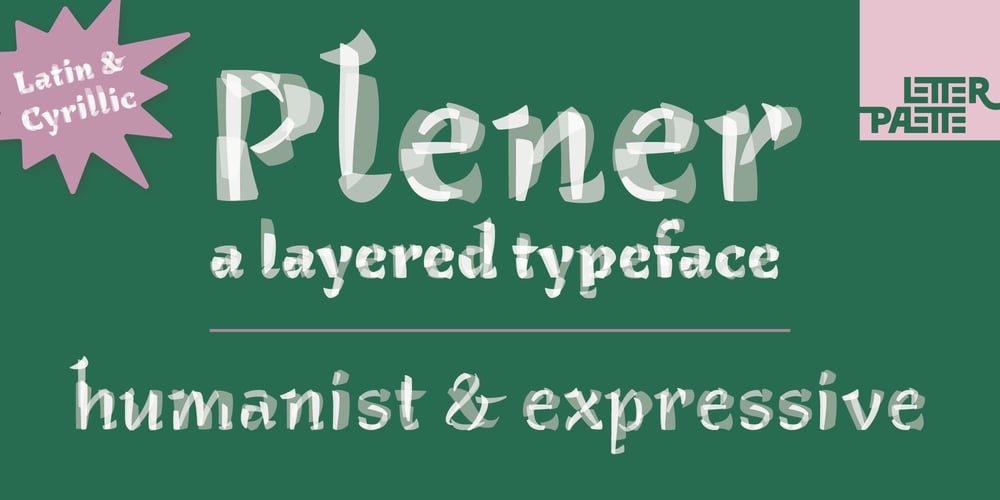
Plener Font Family was designed by Ana Prodanovic and published by LetterPalette. Plener contains 24 styles and family package options. Plener is a type family of layered fonts available in four weights: Light, Regular, Bold, and Heavy. The properties of layered fonts are matched with the classical type family structure, which makes Plener specific. The letters have humanist origins, interpreted expressively with short brush strokes separated in layers. These humanist forms keep the text set in Plein Air surprisingly legible. Layer structure allows the user to play with colors and transparency, giving the text a more personal feel. Plener comes in two additional styles, made of layers from the Light and Heavy weight. These new, display styles, named Plener LLH and Plener LHH are separated from the main family. To make the work easier, we created basic fonts out of merged layers (for every weight and style). We recommend users to set the text using these basic fonts first, then apply an opacity value lower than 100%. When satisfied, copy the text on multiple layers, changing the font to Layer A, B, and C. Apply a unique color to the text on each layer or use the same color but different opacity value. Plener fonts have the following features: ligatures, oldstyle figures, proportional and tabular lining figures, fractions, etc. Besides, there are fifteen dingbats set as discretionary ligatures.Contains Latin and Cyrillic. For some extra tips on how to work with the Plener family, see the pdf file attached to the gallery.